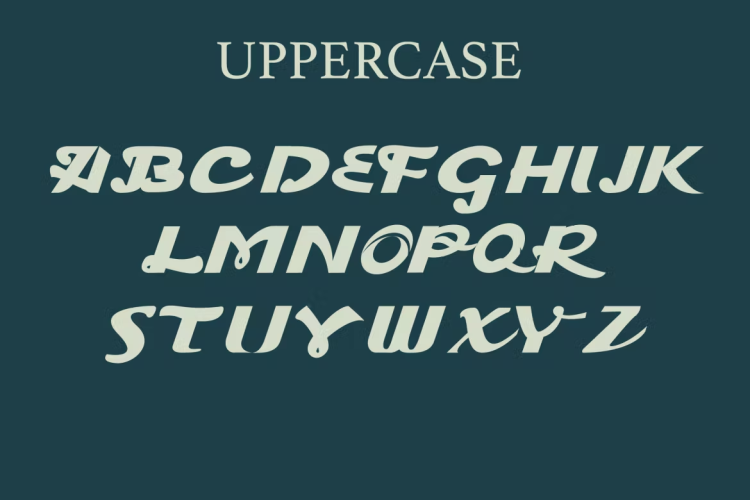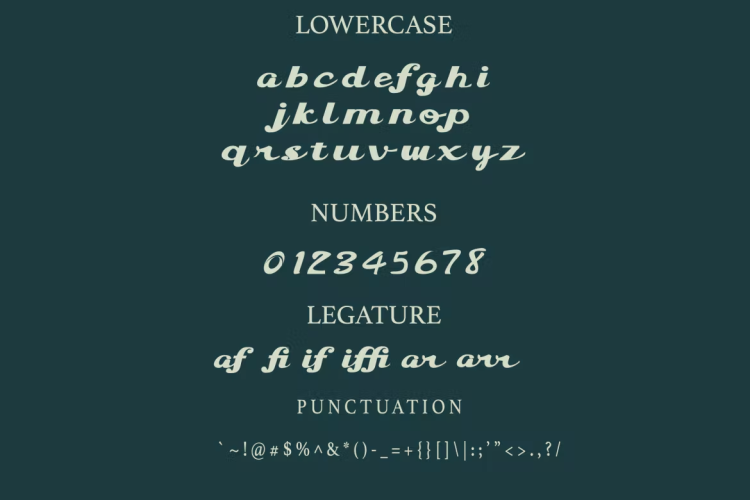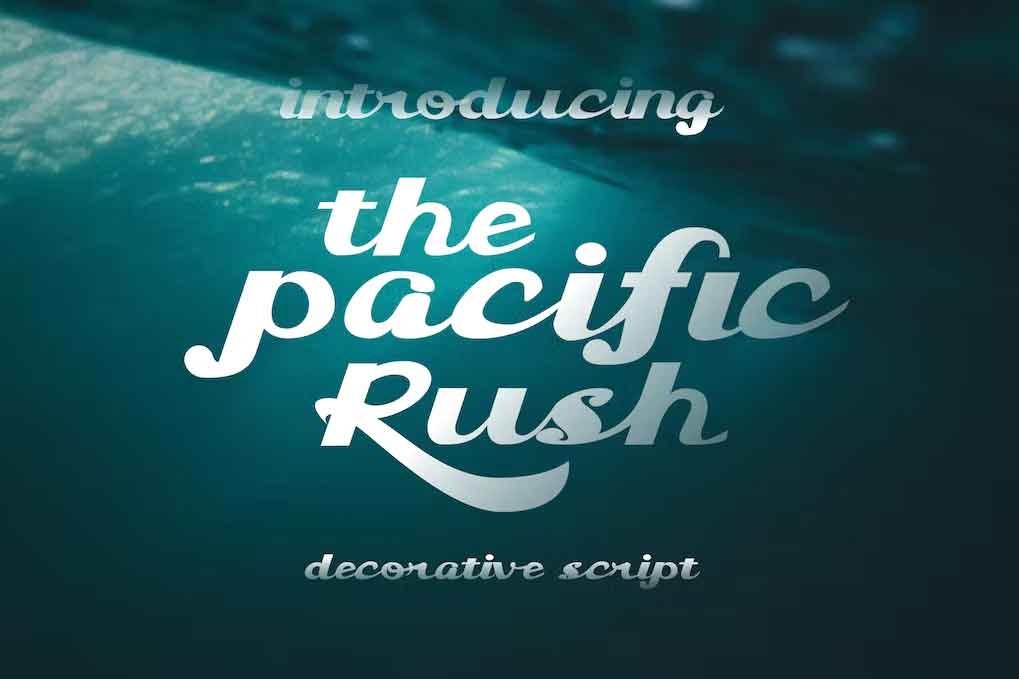
The Pacific Rush Font
The Pacific Rush Font is a modern and authentic font. Perfect for both professional and branding needs of a product. This font is suitable for any branding project like quotes, logo, blog header, poster, banding, letter, invitation, stationery, etc… Designed as a versatile and flexible that can be used on a range of projects and mediums.outstanding in a wide range of contexts.
Where The Pacific Rush Font works best
The Pacific Rush Font brings a personal, handwritten warmth to invitations, menus and place cards.
Craft brands — coffee, cosmetics, bakery — use scripts like The Pacific Rush Font for signature-style logos and labels.
Pair The Pacific Rush Font with a plain sans for quotes, stories and Pinterest pins that feel handmade.
What is The Pacific Rush Font good for?
The Pacific Rush Font is a Script And Handwritten typeface tagged Branding, Modern, Poster, Professional. It works well for headlines, logos, posters, social media graphics and branding projects that need a distinctive script and handwritten look.